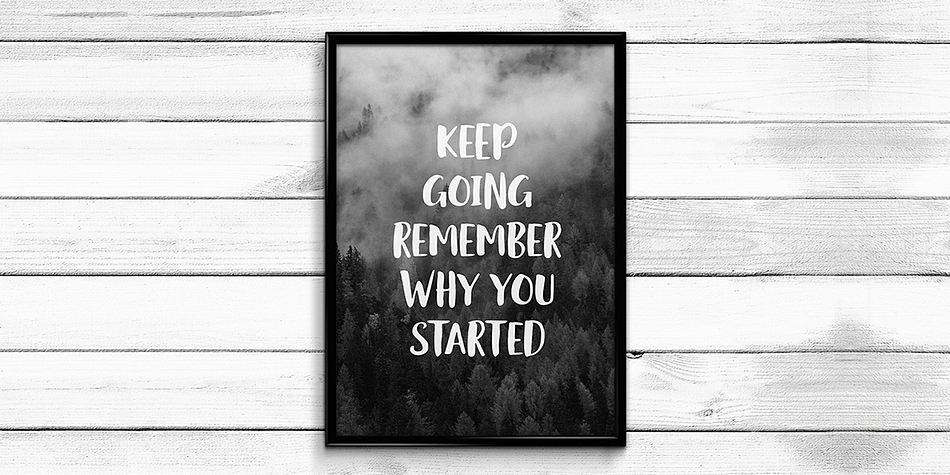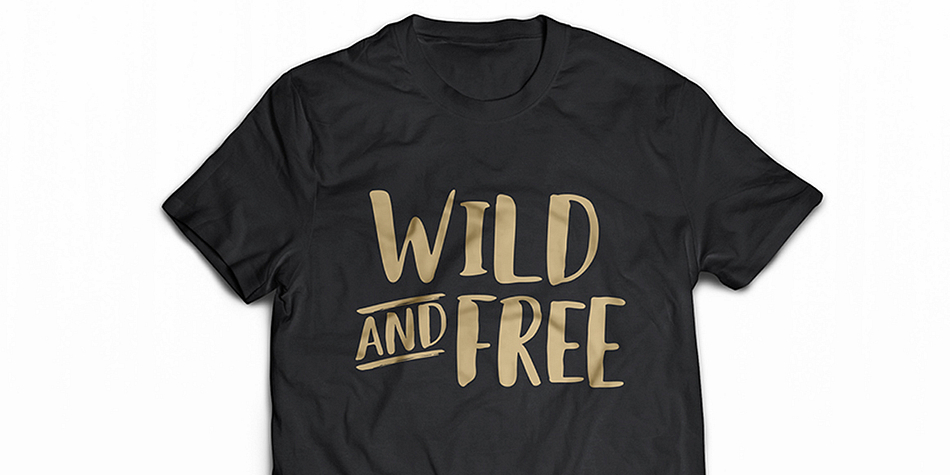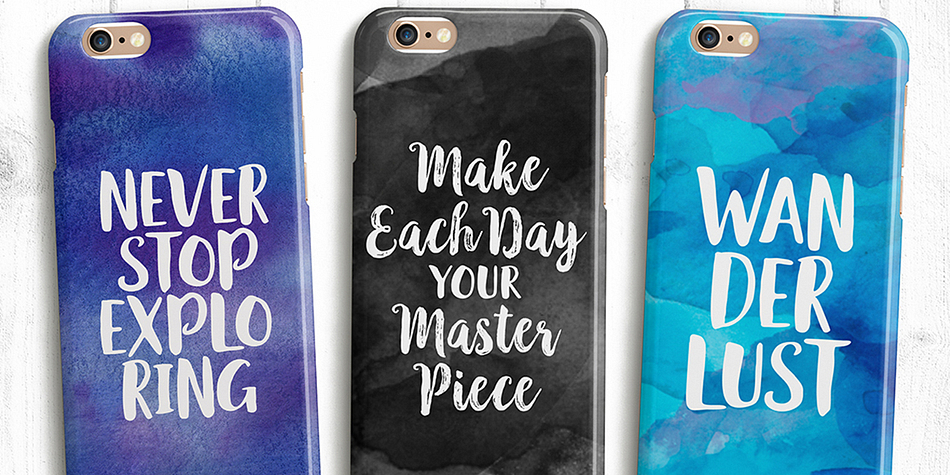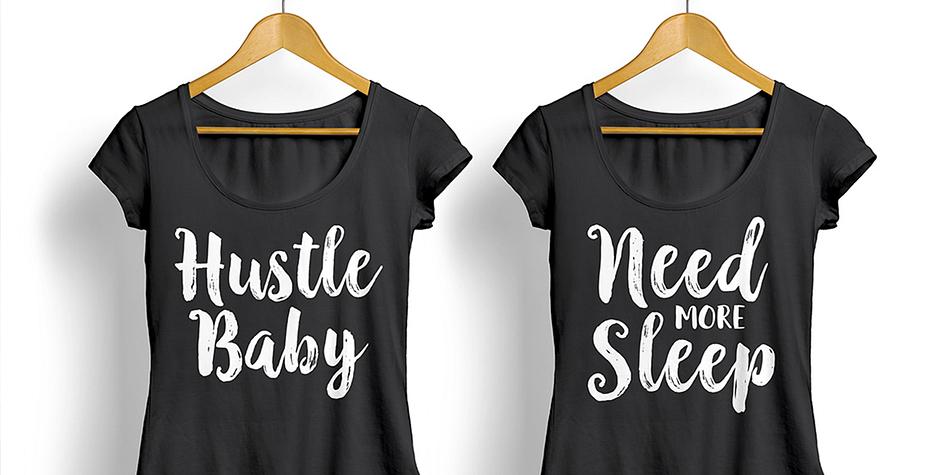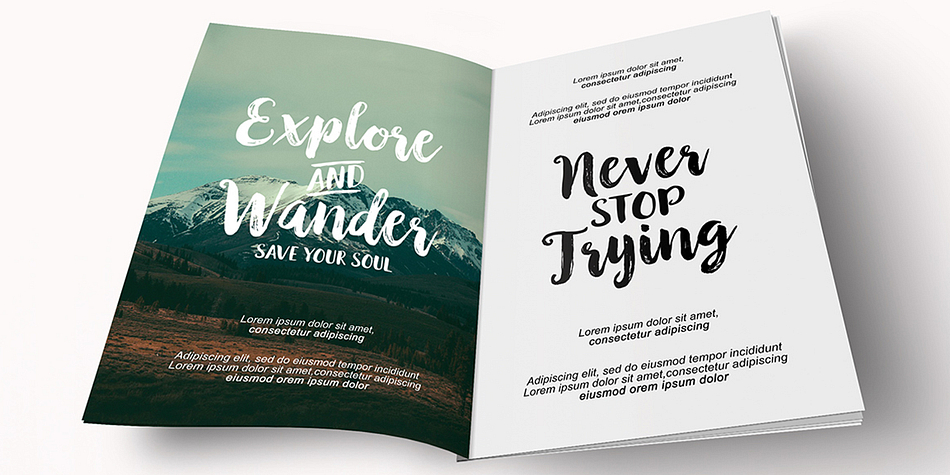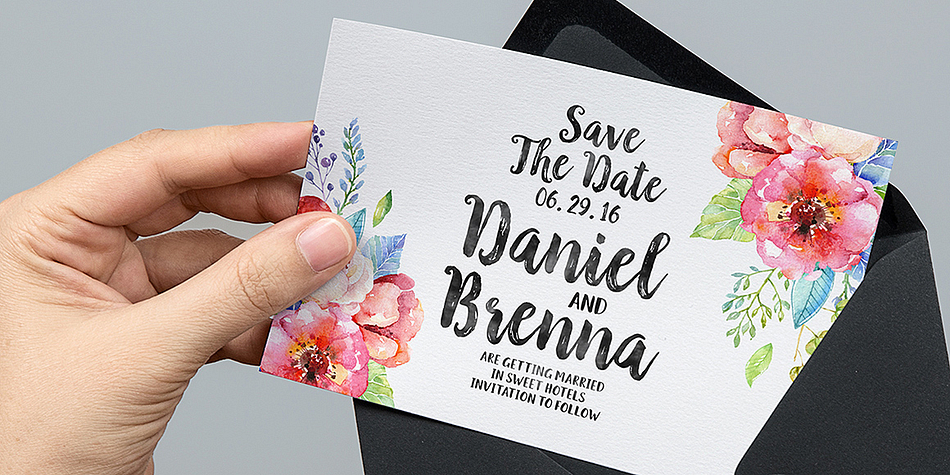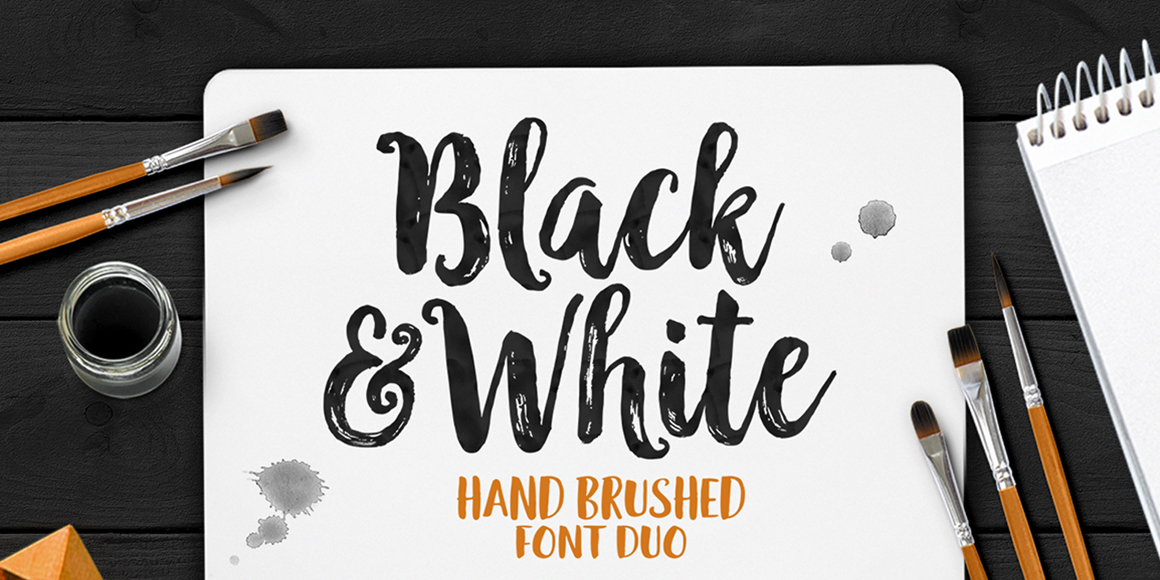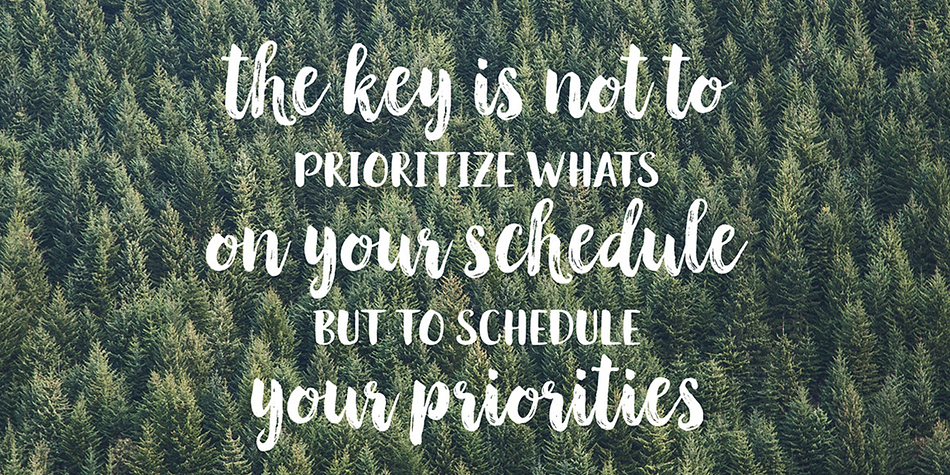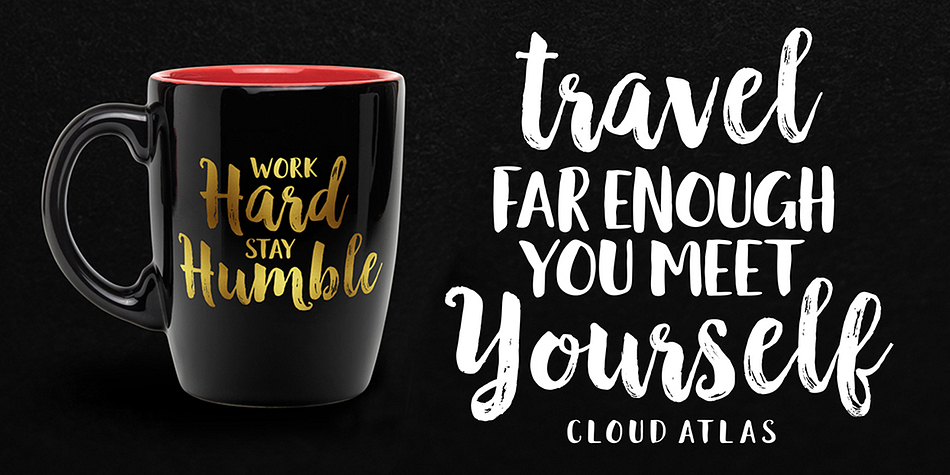
Black and White is a hand display and modern calligraphy font family. This typeface has two styles and was published by Seniors Studio.
Black and white script is a hand brushed font created with a brush and ink, bold and irregular baseline. Contains a complete set of lowercase, uppercase, alternates, ligatures, punctuation, numbers, and multilingual support.
And additional black and white display, working in harmony with black and white script to create typography awesome creations. Get some inspiration from the preview above. Contains a complete set of lowercase with normal baseline, uppercase with irregular baseline, ligatures, punctuation, numbers, and multilingual support.
This font ideal for use in watercolor design or lettering style bold hand, such as posters, wedding elements, t-shirt, apparel, cover books, business cards, greeting cards, branding, merchandise, invitations and handmade quotes and more.